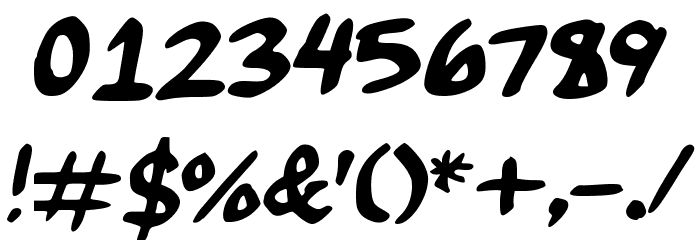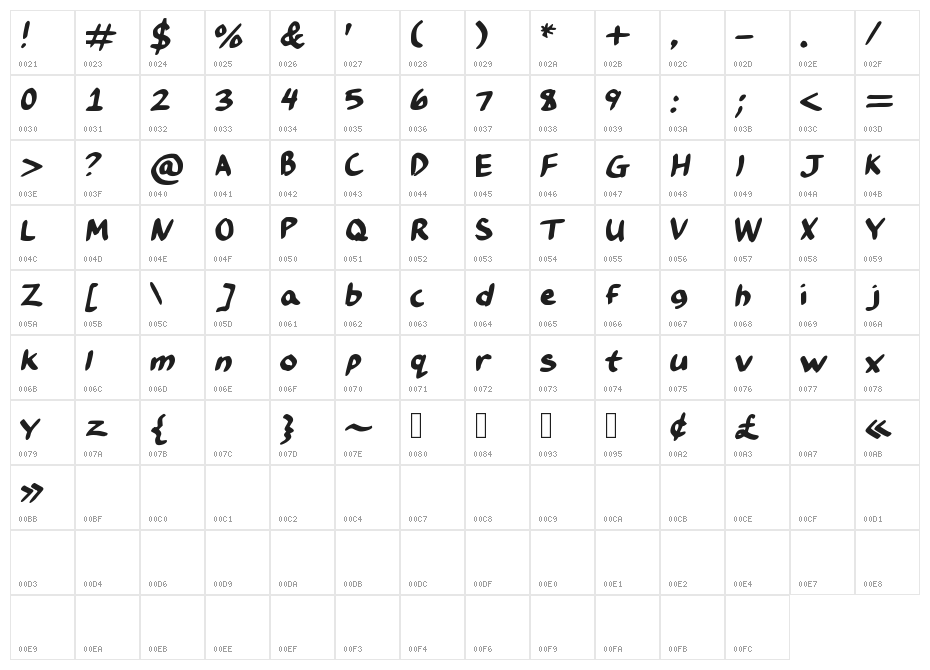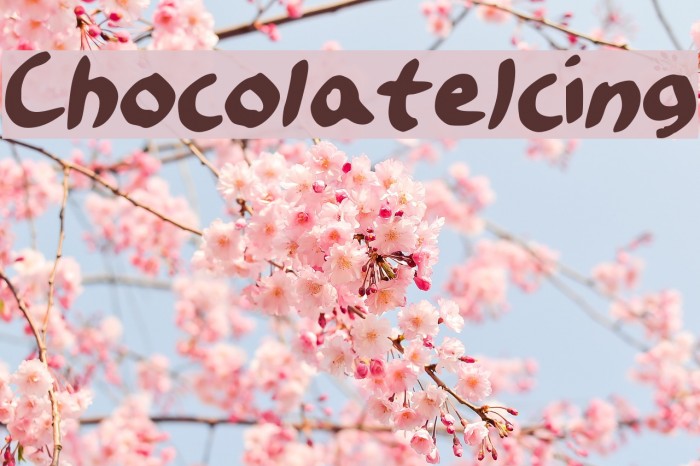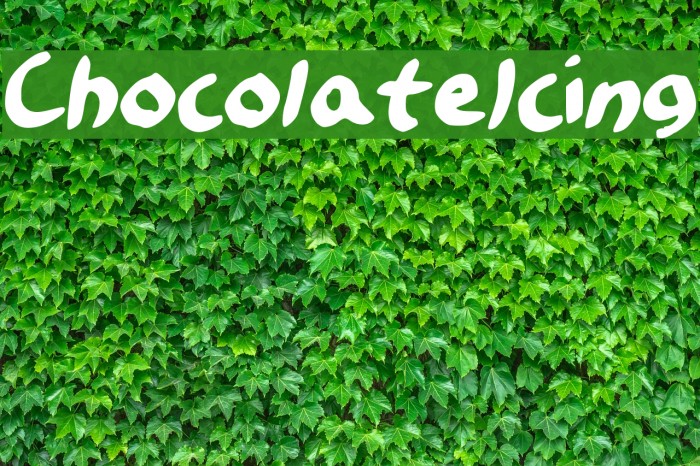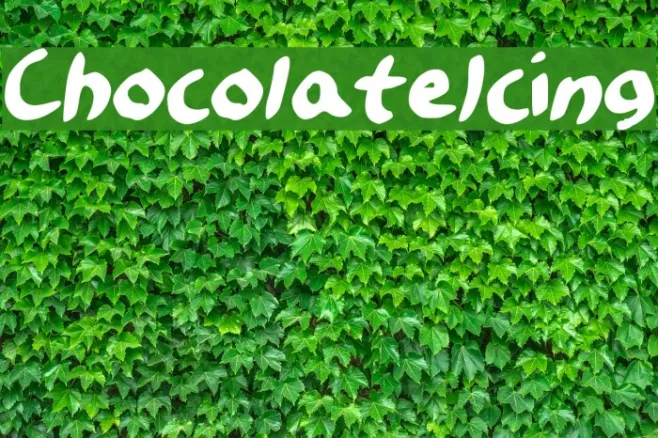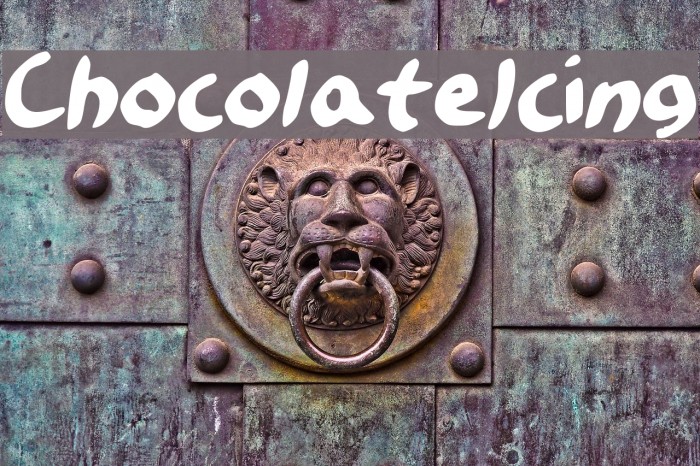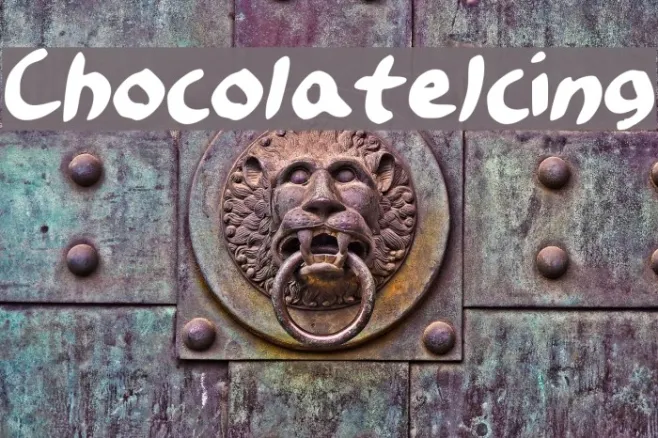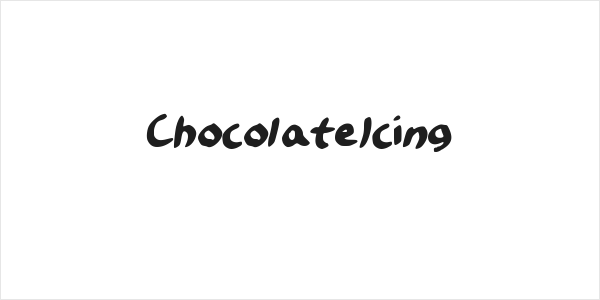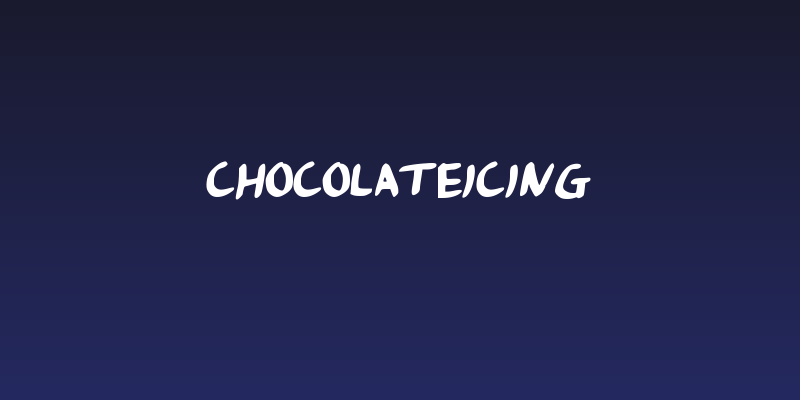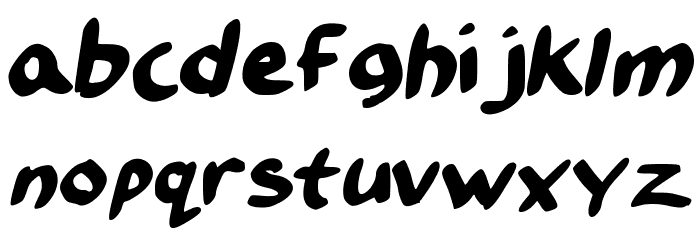
ChocolateIcing Font
ChocolateIcing Description
This font features a playful and bold handwritten style, reminiscent of casual brush strokes. The characters are slightly slanted, giving a dynamic and lively appearance. The strokes are thick and consistent, creating a strong visual impact. The uppercase and lowercase letters maintain a cohesive look, with rounded edges and a smooth flow. Numbers and special characters are designed with the same playful aesthetic, making them easily readable and visually appealing. This font is perfect for projects that require a personal touch and a sense of fun.
Overall StylePlayful
Proposed ProjectsIdeal for greeting cards, children's books, playful branding, and social media graphics.